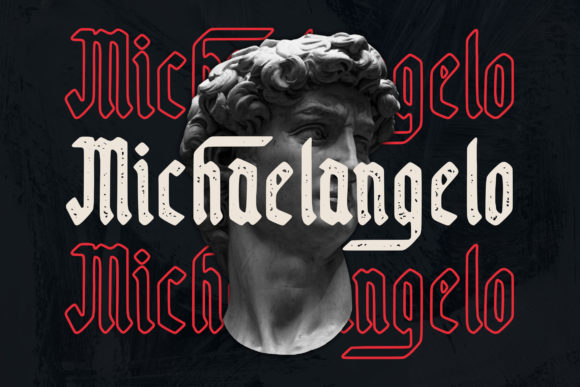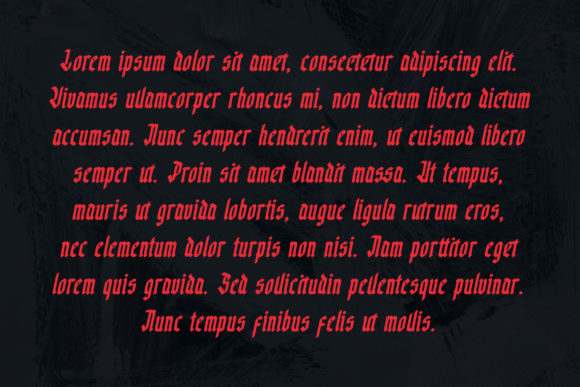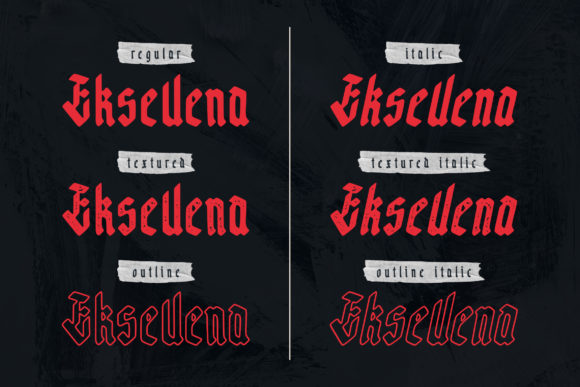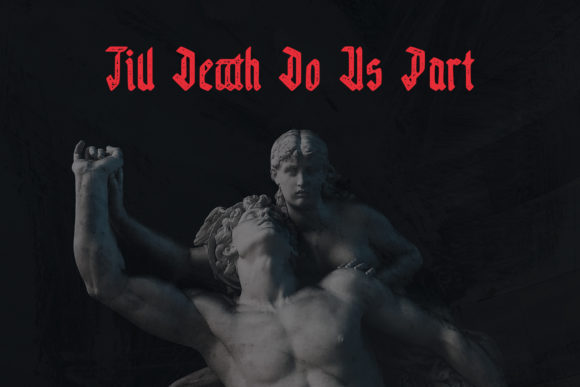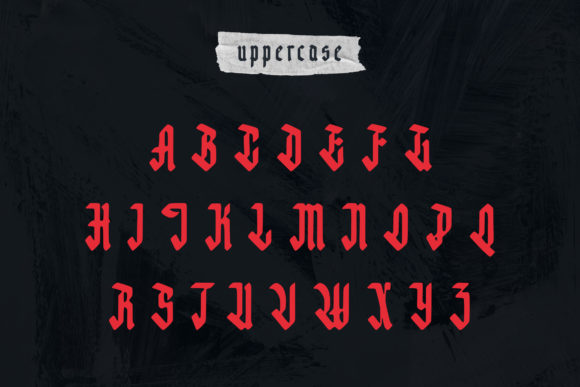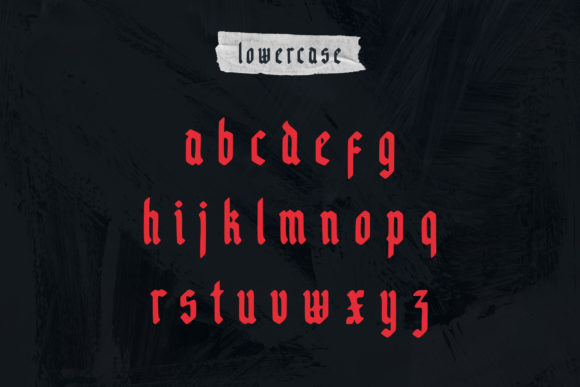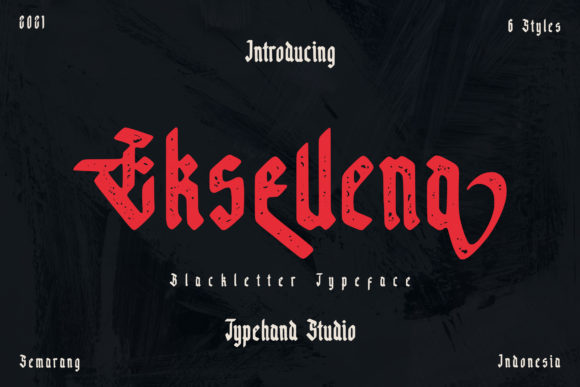
Introducing Eksellena Font: The Ultimate Blackletter Font for Creative Projects
Are you tired of using the same old fonts for your creative projects? Look no further! Eksellena Font is here to revolutionize your designs with its bold, rough textured, and highly detailed blackletter style. Masterfully designed to become a true favorite among designers and crafters, Eksellena Font has the potential to bring each of your creative ideas to the highest level.
What is Eksellena Font?
Eksellena Font is a bold, rough textured, and highly detailed blackletter font that is perfect for designers and crafters looking to add a touch of elegance and sophistication to their projects. With its unique and intricate design, Eksellena Font is sure to make your projects stand out from the crowd.
Key Features of Eksellena Font
• Bold and Highly Detailed Design: Eksellena Font features a bold and highly detailed design that is perfect for creating striking headlines, titles, and logos.
• Rough Textured Finish: The font’s rough textured finish gives it a unique and organic feel that adds a touch of warmth and character to your designs.
• Blackletter Style: Eksellena Font is a true blackletter font, with intricate and ornate details that are sure to impress.
• Highly Versatile: Eksellena Font is highly versatile and can be used for a wide range of creative projects, from logos and branding to posters and packaging.
Why Choose Eksellena Font?
So why choose Eksellena Font for your creative projects? Here are just a few reasons:
• Stand Out from the Crowd: With its unique and intricate design, Eksellena Font is sure to make your projects stand out from the crowd and grab attention.
• Add a Touch of Elegance: Eksellena Font adds a touch of elegance and sophistication to your designs, making it perfect for high-end branding and luxury projects.
How to Use Eksellena Font
Using Eksellena Font is easy! Here are just a few tips to get you started:
• Pair with Other Fonts: Eksellena Font pairs well with other fonts, so feel free to experiment with different combinations to find the perfect look for your project.
• Use for Headlines and Titles: Eksellena Font is perfect for headlines and titles, where its bold and highly detailed design can really shine.
• Experiment with Colors: Eksellena Font looks great in a wide range of colors, so don’t be afraid to experiment and find the perfect color scheme for your project.
In conclusion, Eksellena Font is a bold, rough textured, and highly detailed blackletter font that is perfect for designers and crafters looking to add a touch of elegance and sophistication to their projects. With its unique and intricate design, Eksellena Font is sure to make your projects stand out from the crowd and bring your creative ideas to the highest level. So why wait? Download Eksellena Font today and start creating!